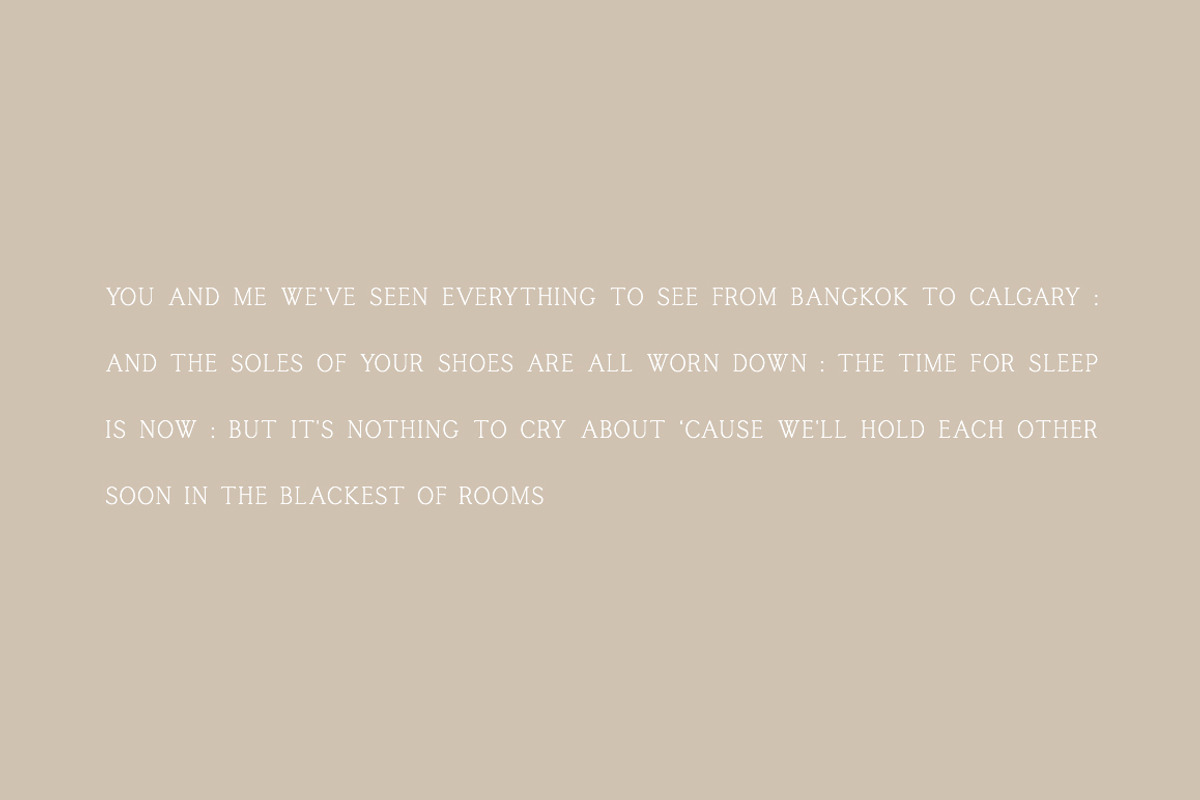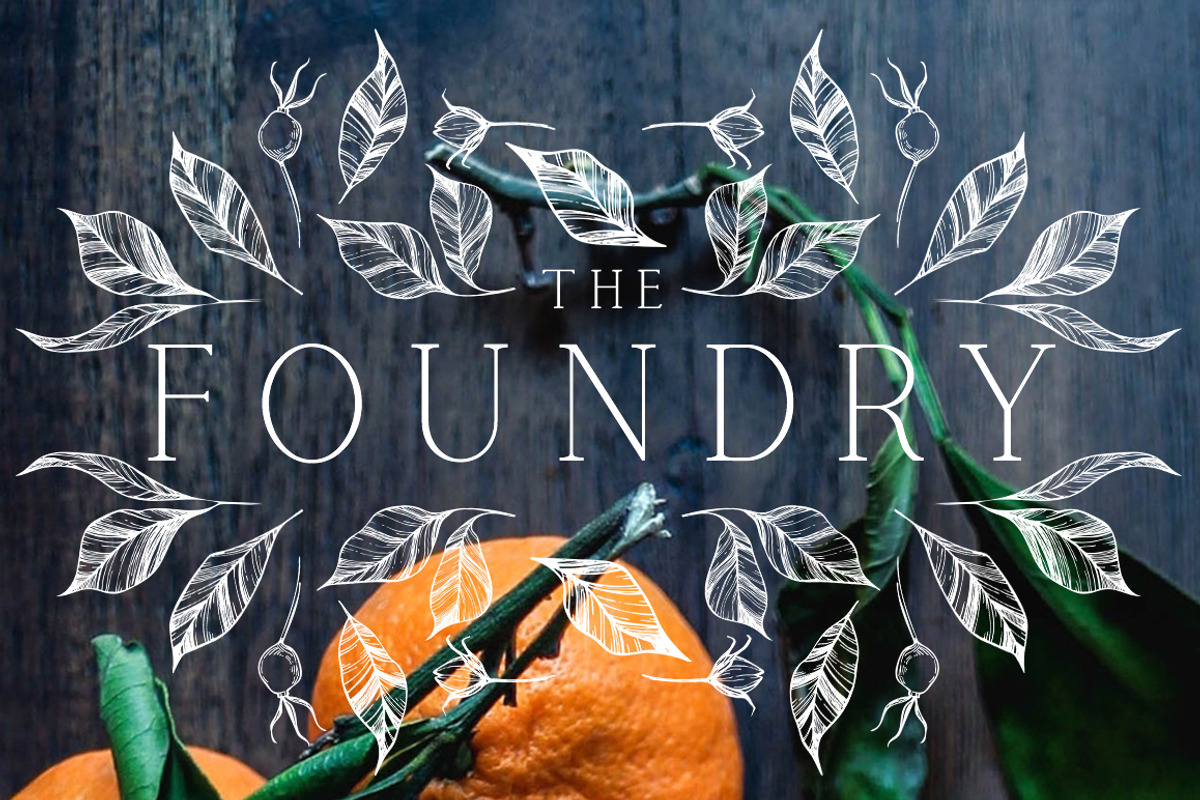
Calgary is an classy all-caps serif typeface features clean serifs and a narrow profile. It’s perfect for gorgeous logos, titles, invitations, and more!